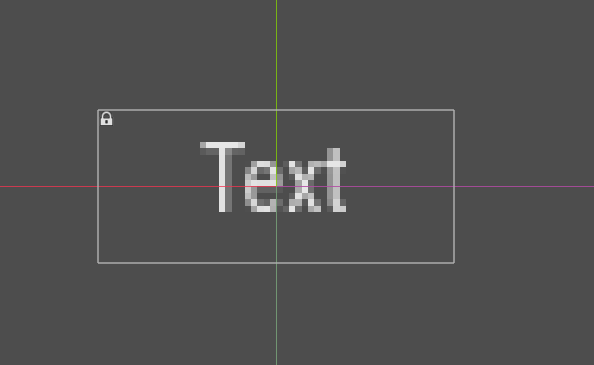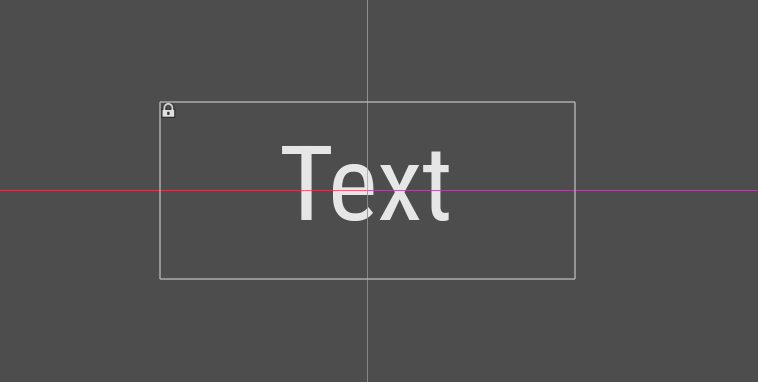
I just switched my project from Godot 4.2 to Godot 4.6.1 and now my font looks high definition, in the editor and when I run the project, despite the fact that the content in the game is inside a low resolution Subviewport.
I am working on a pixel art project and I want my font to be pixelated like that. Is important to note that my font is not a pixelated one, is simply a normal font with a small size inside the Godot project.
I wonder if there is any option inside project settings to change this, I have already searched and found nothing.
Here are some screenshots from the editor difference.